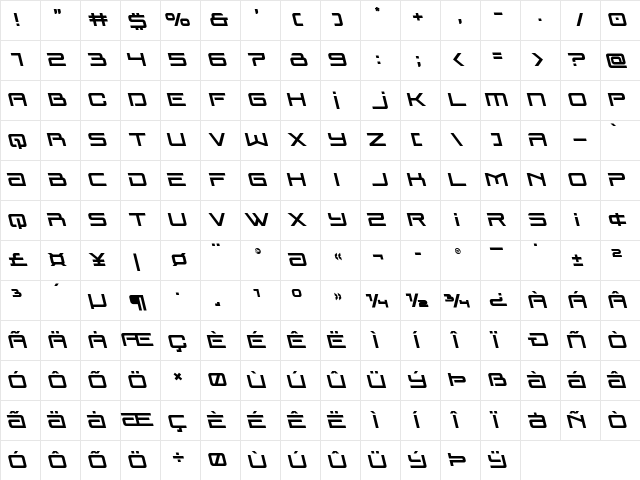
Blade Singer Leftalic Regular
Blade Singer Leftalic is a composed and adaptable typeface that performs quietly and consistently across a wide range of design contexts. The slanted form adds forward momentum and visual energy.